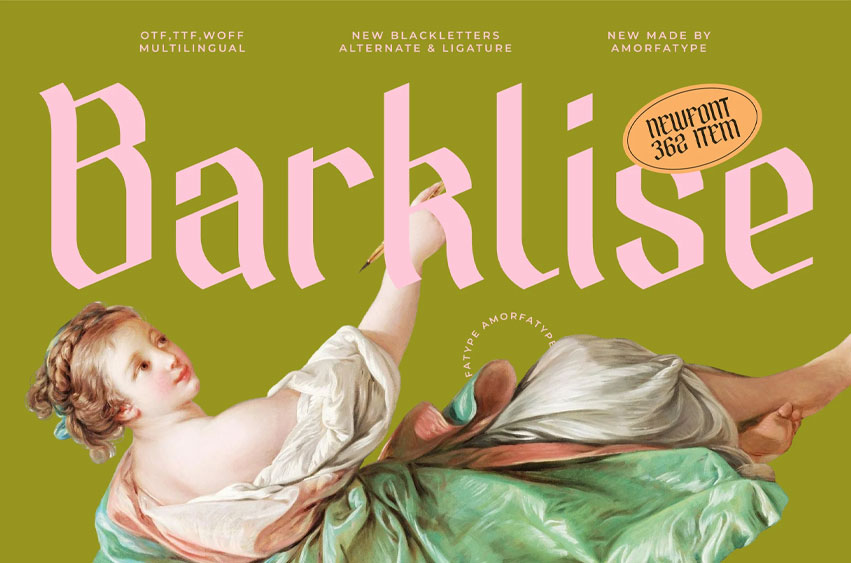
Barklise Font is a bold and expressive blackletter font that fuses gothic tradition with a sharp modern edge. With vintage-inspired forms, razor-sharp strokes, and a powerful visual presence, Barklise is built for designs that command attention.
Perfect for tattoos, metal band merch, logos, posters, and branding that dares to stand out — Barklise brings attitude and elegance into one unforgettable display font.
- Perfect for Branding & Logos – Build strong, iconic identities
- Gothic Meets Vintage – Ideal for posters, labels, invitations, packaging
- Editorial Ready – Great for book covers, magazine headlines & zines
- Event & Music Artwork – Create killer flyers, album covers, and stage visuals
- Social Media Ready – Boost your aesthetic with bold and edgy posts
- Full Character Set: Uppercase, lowercase, numerals, punctuation & ligatures
Barklise is more than a font — it’s a statement. Perfect for dark, gritty, rebellious, or nostalgic vibes. Whether you’re designing for metal bands, horror projects, streetwear brands, or tattoo culture, Barklise brings the drama and depth your work needs.
Add Barklise to your arsenal and rule your typography with gothic power!